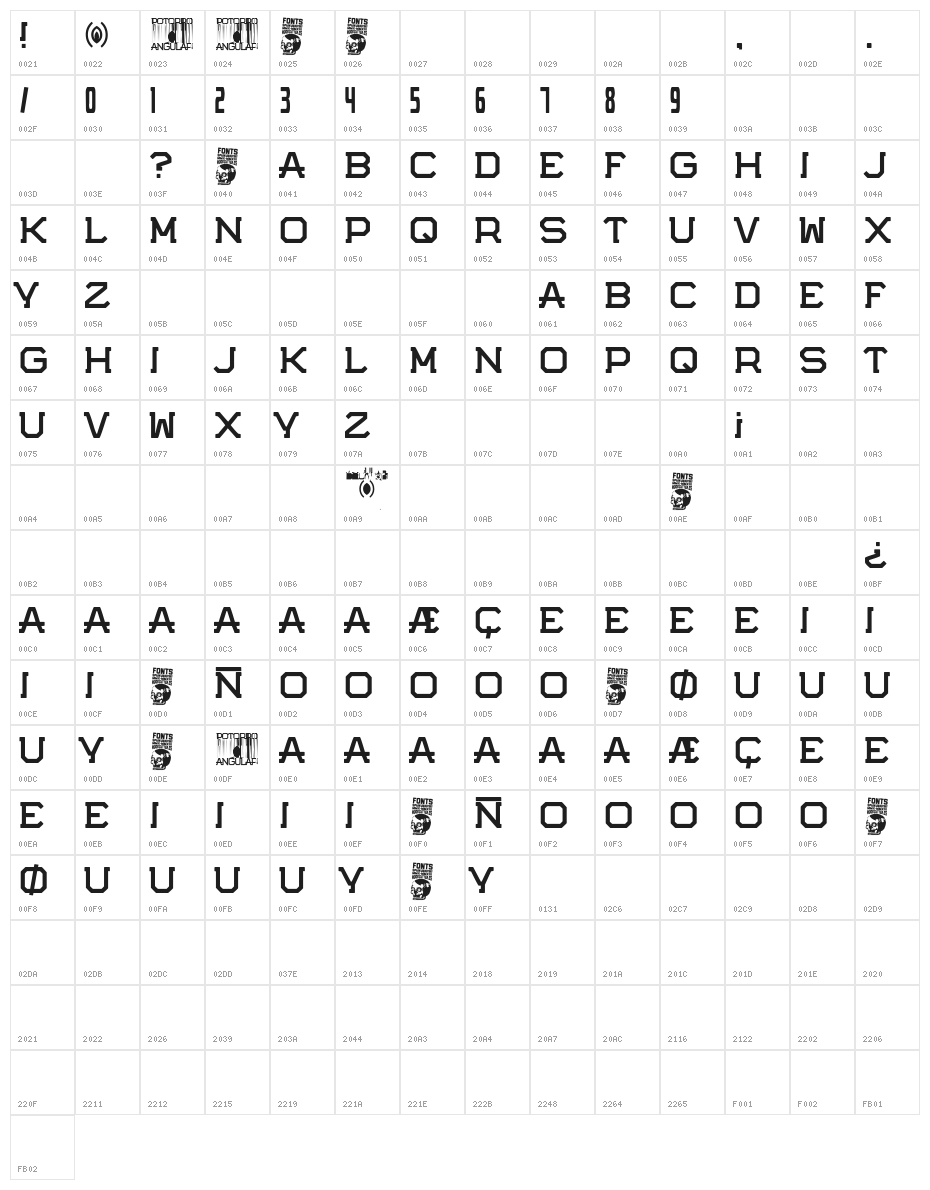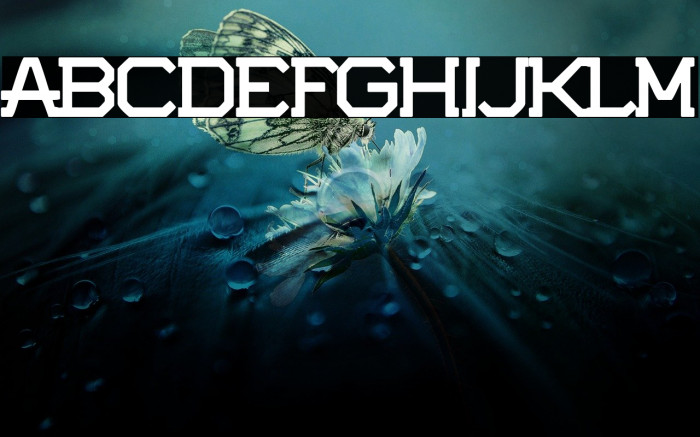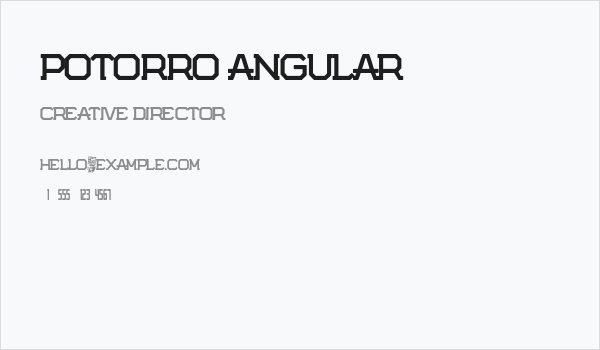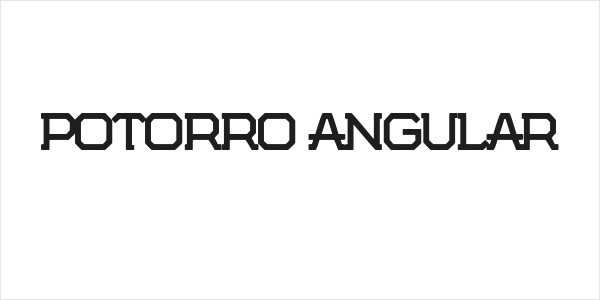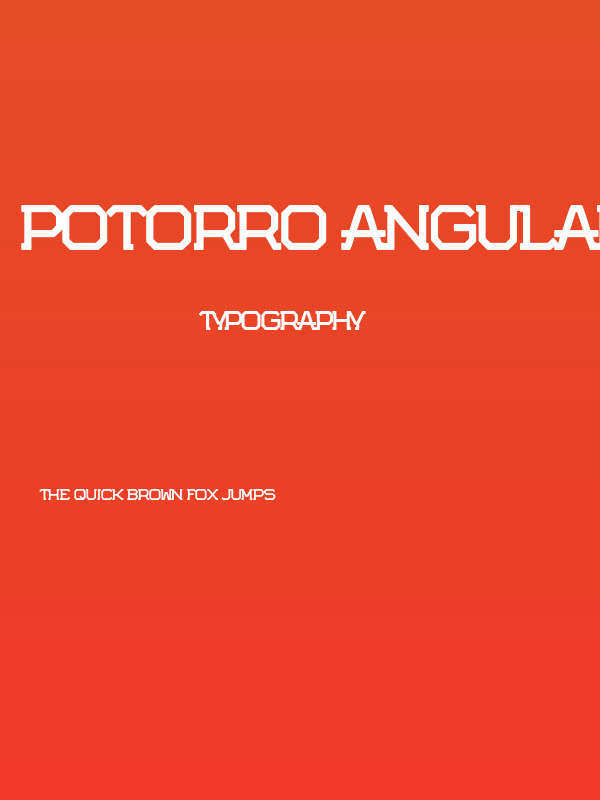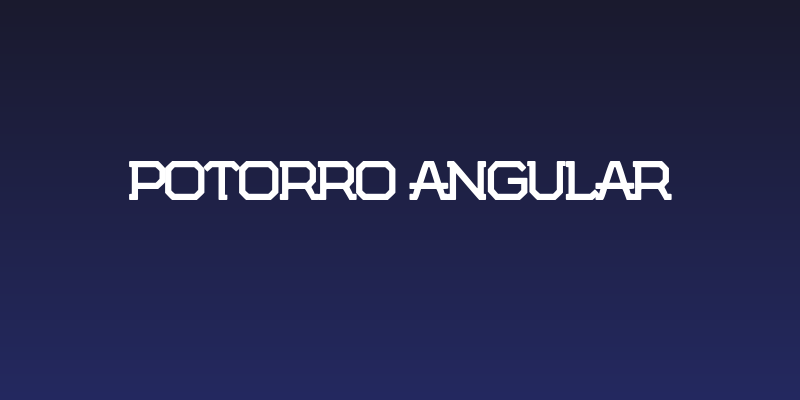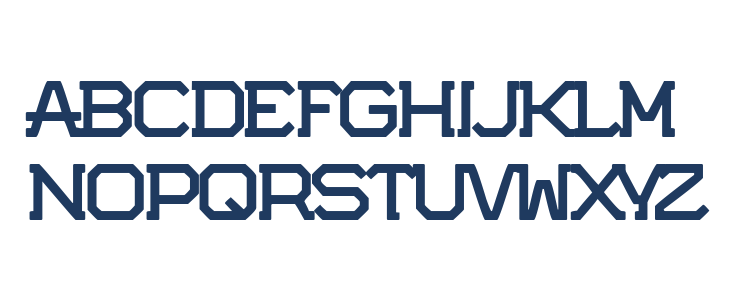
Potorro Angular Font
Potorro Angular Description
This font features a bold, angular design with a futuristic and geometric aesthetic. The characters are constructed with sharp edges and straight lines, giving it a distinct, modern appearance. The uppercase and lowercase letters maintain a consistent style, with a uniform height and width that enhances readability. The numerals are equally bold and angular, matching the overall design theme. Special characters are included, maintaining the same angular style, which adds versatility to the font. This font's unique structure makes it stand out, ideal for projects that require a strong visual impact.